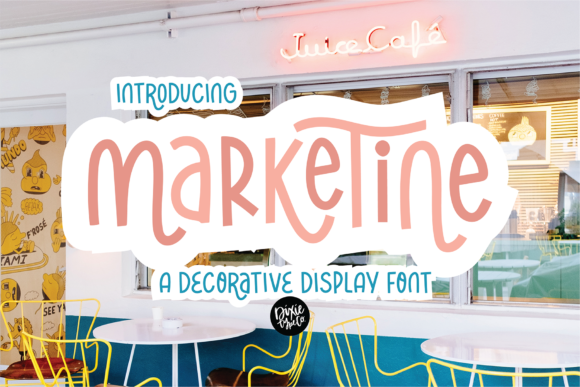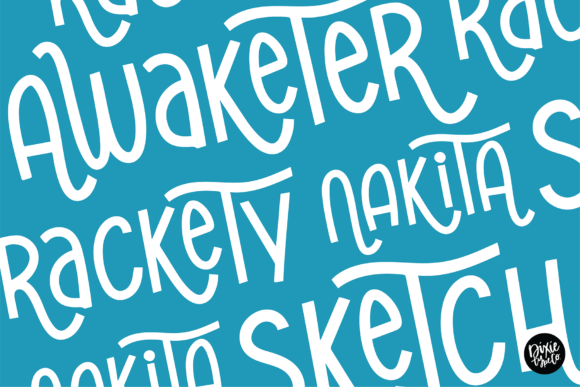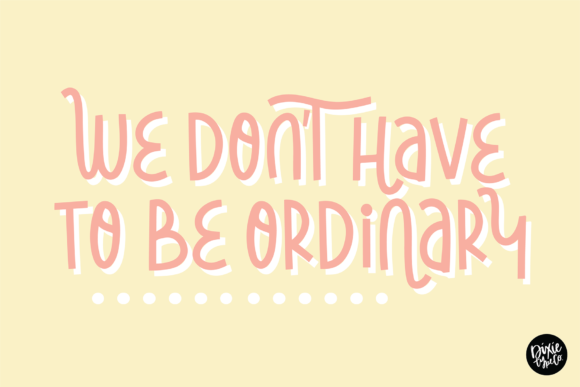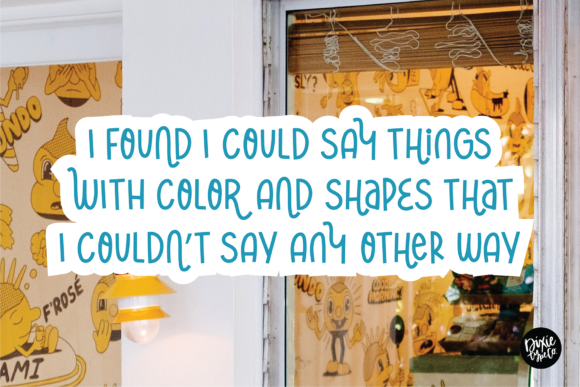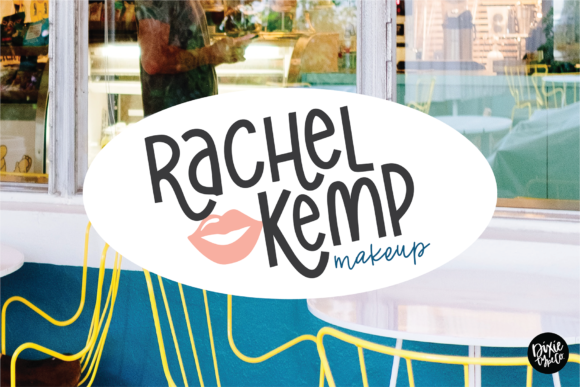
Marketine Font
Marketine is a unique and interesting display font. Incredibly versatile, this font will fit a wide pool of designs.
Fall in love with its incredibly stylish look and use it to create spectacular designs!